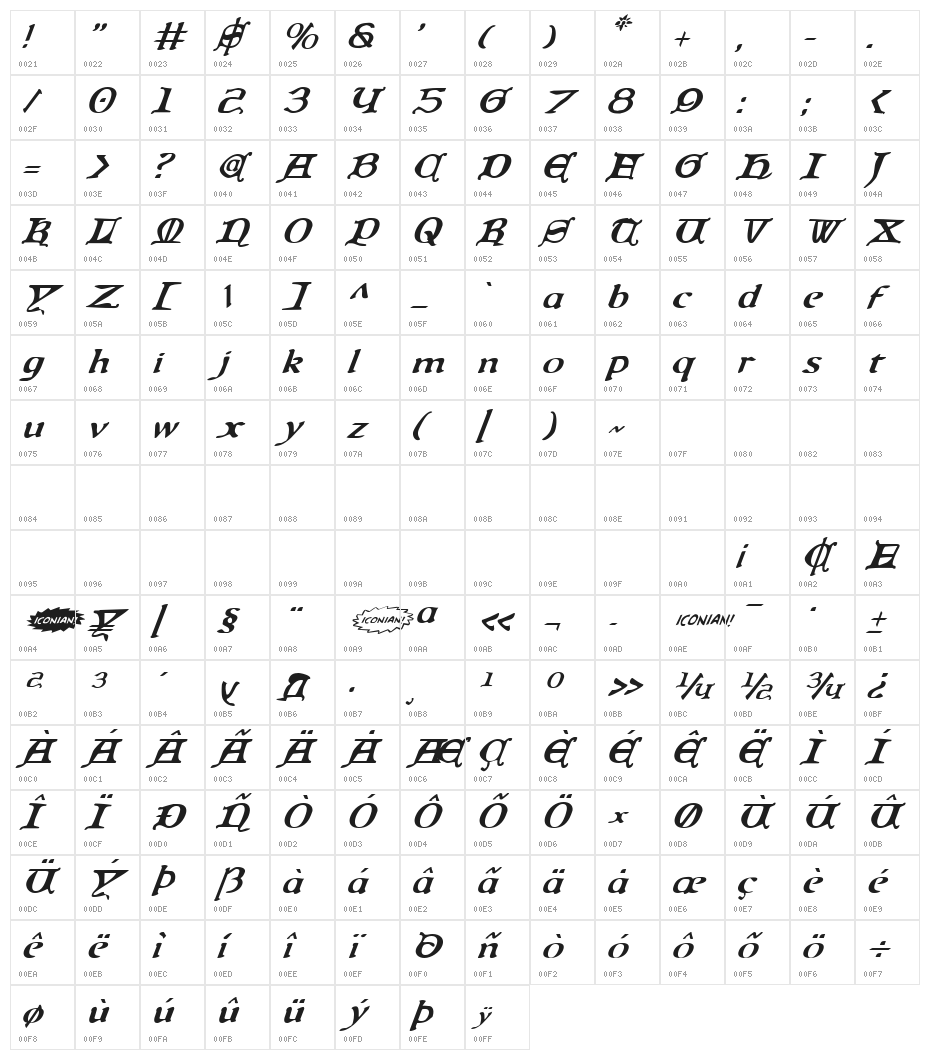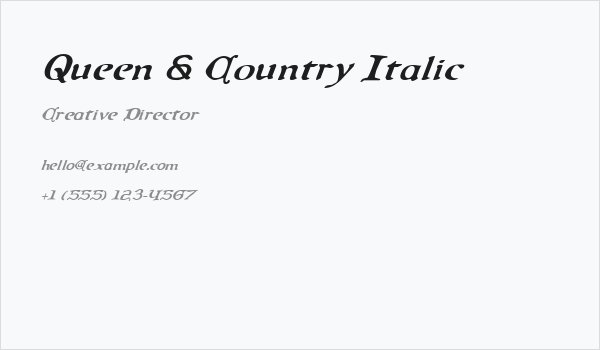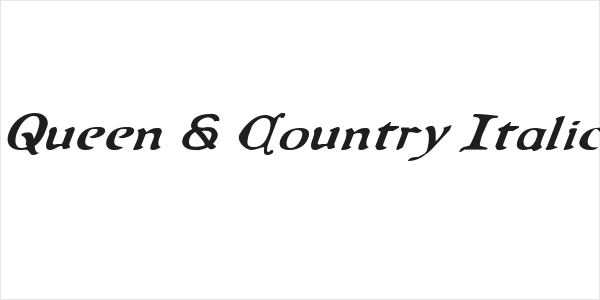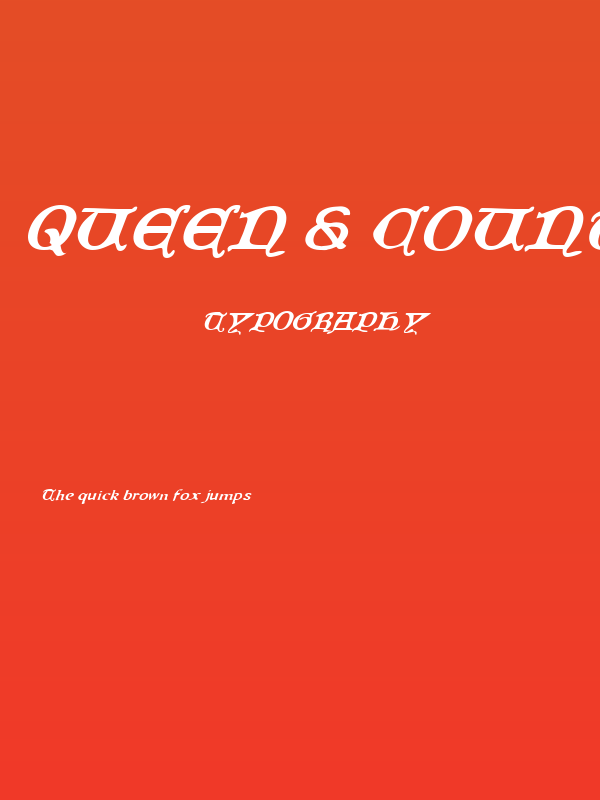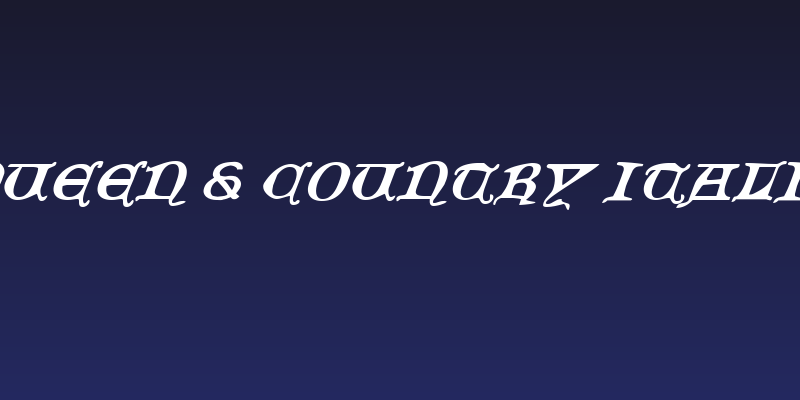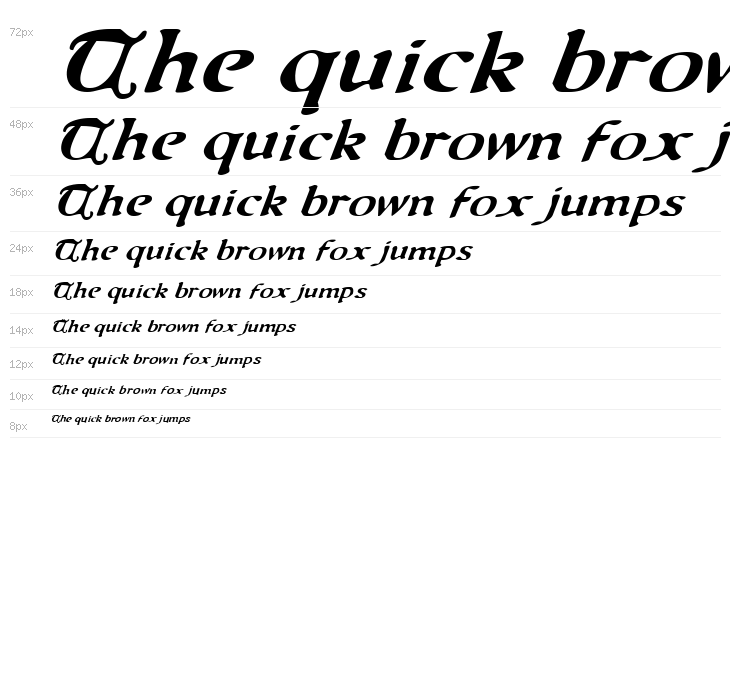
Queen & Country Italic Font
Queen & Country Italic Description
This font features a distinct italic style with a decorative flair, characterized by its elegant curves and flowing lines. The uppercase letters exhibit a bold presence with intricate serifs, while the lowercase letters maintain a smooth, connected appearance, enhancing readability. The numerals are uniquely styled, complementing the overall aesthetic. Special characters are designed with a similar attention to detail, making them stand out. The font's consistent stroke width and moderate contrast add to its sophisticated look, making it suitable for various design applications.